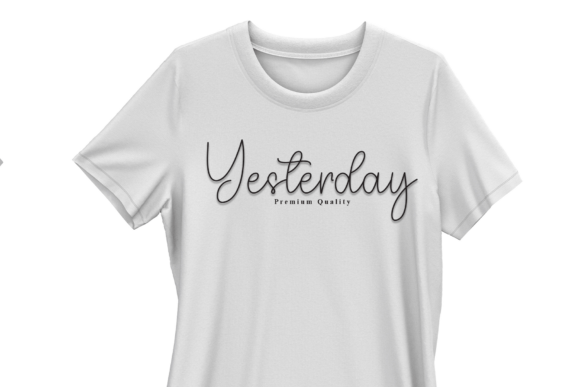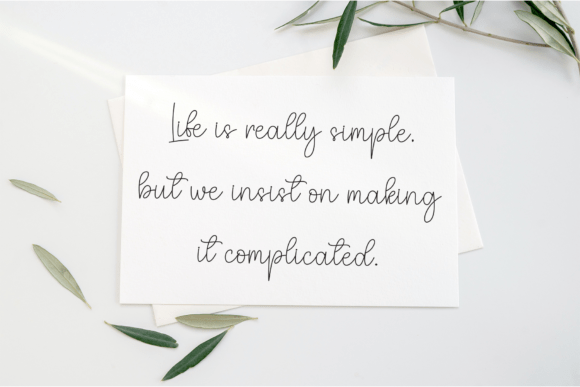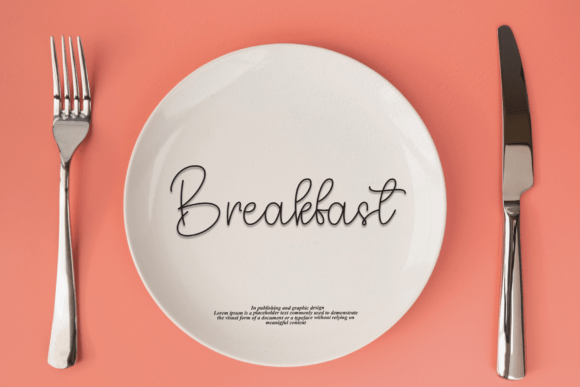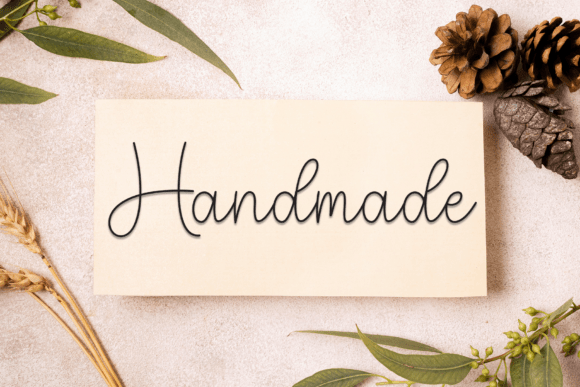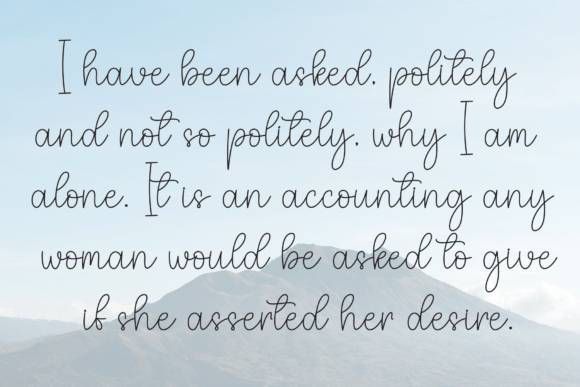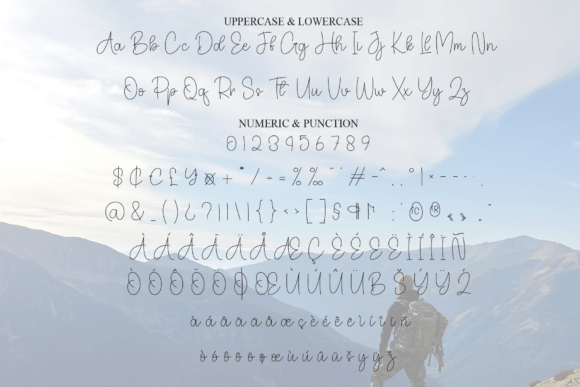
Introducing Adventure Font: Elevate Your Designs with Elegance and Fluidity
Are you on the lookout for a font that can add a touch of sophistication and charm to your designs? Look no further than Adventure Font, a stylish handwritten script font that is sure to take your branding, invitations, and creative projects to the next level. With its smooth, flowing strokes and natural feel, Adventure Font is the perfect choice for designers and crafters who want to add a personal, artistic touch to their work.
The Characteristics of Adventure Font
Adventure Font is a beautifully crafted script font that boasts a range of characteristics that set it apart from other fonts. Its smooth, flowing strokes create a natural and sophisticated feel, making it perfect for designs that require a touch of elegance. The font’s fluidity is evident in its connected letters, which flow seamlessly into one another to create a beautiful, cohesive look.
One of the standout features of Adventure Font is its balance of charm and modernity. The font’s classic, handwritten feel is perfectly balanced with a modern sensibility, making it suitable for a wide range of design applications. Whether you’re creating a logo, invitation, or social media graphic, Adventure Font is sure to add a touch of sophistication and style.
Uses for Adventure Font
Adventure Font is a versatile font that can be used in a variety of design applications. Here are just a few ideas to get you started:
• Branding: Use Adventure Font to create a logo or brand identity that exudes elegance and sophistication.
• Invitations: Add a touch of class to your wedding invitations, birthday party invites, or other special occasion stationery with Adventure Font.
• Creative Projects: Use Adventure Font to add a personal, artistic touch to your creative projects, such as handmade cards, scrapbooking, or mixed media art.
• Digital Designs: Adventure Font is also perfect for digital designs, including social media graphics, blog headers, and website titles.
Why Choose Adventure Font?
So why should you choose Adventure Font for your design projects? Here are just a few reasons:
• Elegance: Adventure Font adds a touch of elegance and sophistication to any design.
• Versatility: The font’s versatility makes it suitable for a wide range of design applications.
• Uniqueness: Adventure Font’s unique blend of classic and modern characteristics sets it apart from other fonts.
• Easy to Read: The font’s smooth, flowing strokes make it easy to read, even at small sizes.
Tips for Using Adventure Font
Here are a few tips for getting the most out of Adventure Font:
• Use it sparingly: Adventure Font is a statement font, so use it sparingly to add emphasis to your designs.
• Experiment with colors: The font’s elegant feel pairs well with a range of colors, so don’t be afraid to experiment and find the perfect combination for your design.
• Pair it with other fonts: Adventure Font pairs well with a range of other fonts, including sans-serif and serif fonts.
Adventure Font is a stylish handwritten script font that is sure to elevate your designs with its elegance and fluidity. With its smooth, flowing strokes and natural feel, this font is perfect for branding, invitations, and creative projects. Whether you’re a designer or crafter, Adventure Font is a great choice for anyone looking to add a personal, artistic touch to their work. So why wait? Download Adventure Font today and start creating beautiful, sophisticated designs that are sure to impress.
Adventure Font Free Download – Windows, Mac, Linux
Unleash Your Creativity with Adventure Font: The Ultimate Display Typeface for Joyful Designs
Are you on the hunt for a font that embodies the essence of playfulness, charm, and friendliness? Look no further than Adventure Font, a whimsically penned display typeface that is sure to capture the hearts of designers and crafters alike. With its cute and delightful air, Adventure Font is the perfect tool for crafting romantic wedding invitations, heartfelt cards, or any design project that aims to spread joy and fun.
The Characteristics of Adventure Font
Adventure Font boasts a unique and charming personality that sets it apart from other display fonts. Its whimsical strokes and playful curves give it a friendly and approachable feel, making it ideal for designs that require a personal touch. The font’s cute and delightful air is sure to evoke emotions and create a sense of connection with your audience.
One of the standout features of Adventure Font is its versatility. Whether you’re designing a romantic wedding invitation, a heartfelt card, or a fun and playful poster, this font is sure to adapt to your creative vision. Its display font style makes it perfect for headlines, titles, and other attention-grabbing elements in your design.
Adventure Font is a whimsically penned display font that is sure to bring joy and fun to your design projects. With its cute and playful air, this font is perfect for crafting romantic wedding invitations, heartfelt cards, or any design project that aims to spread joy and fun. Whether you’re a designer or crafter, Adventure Font is a versatile typeface that is sure to unleash your creativity and inspire your next design project.